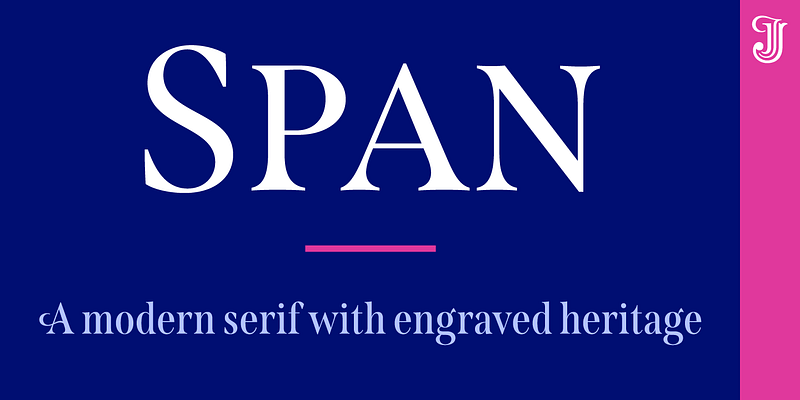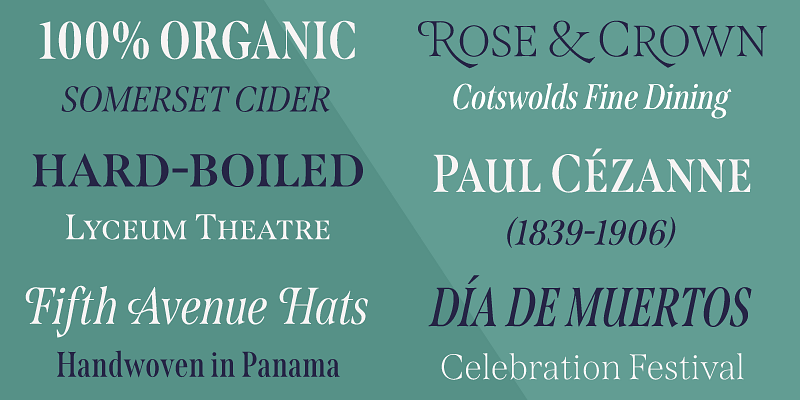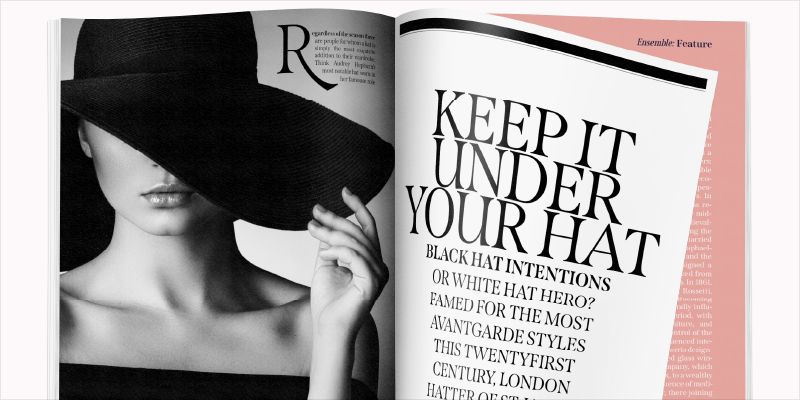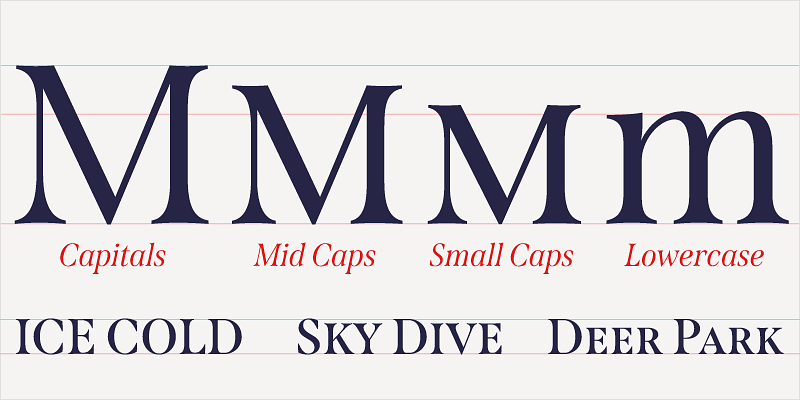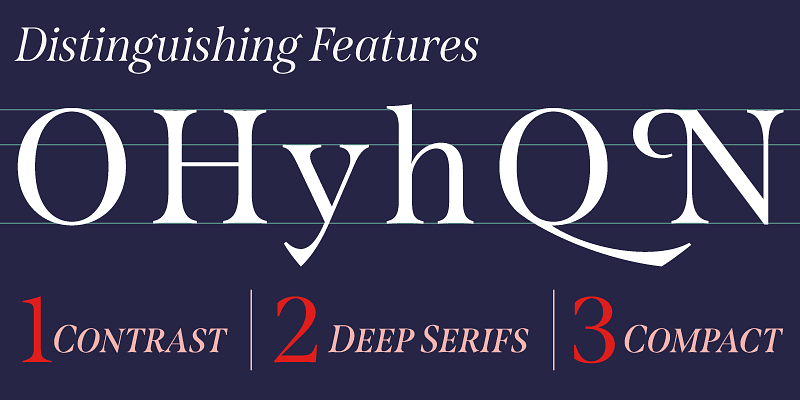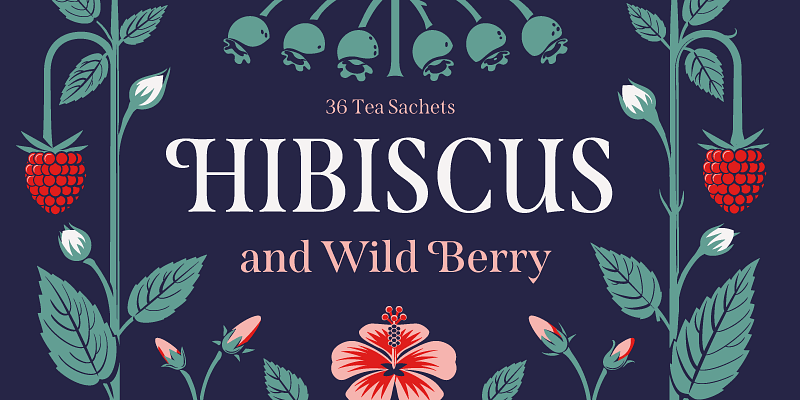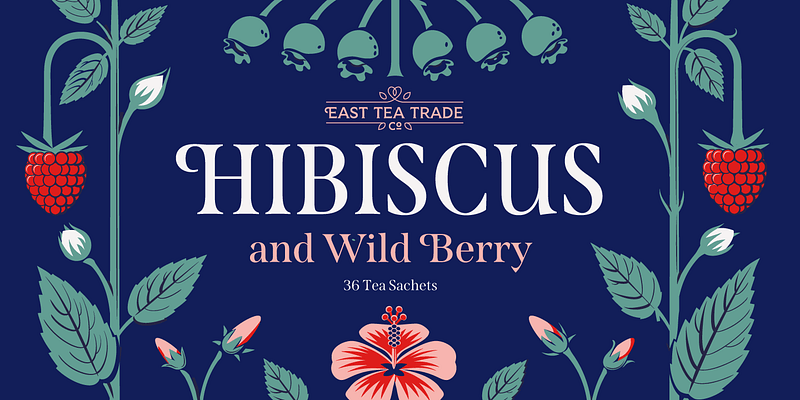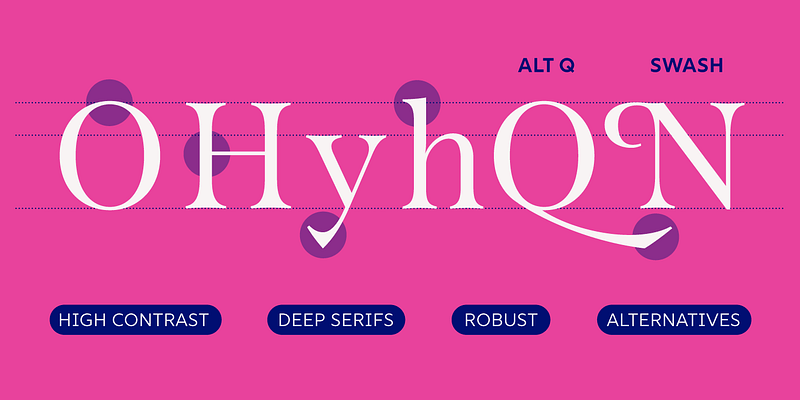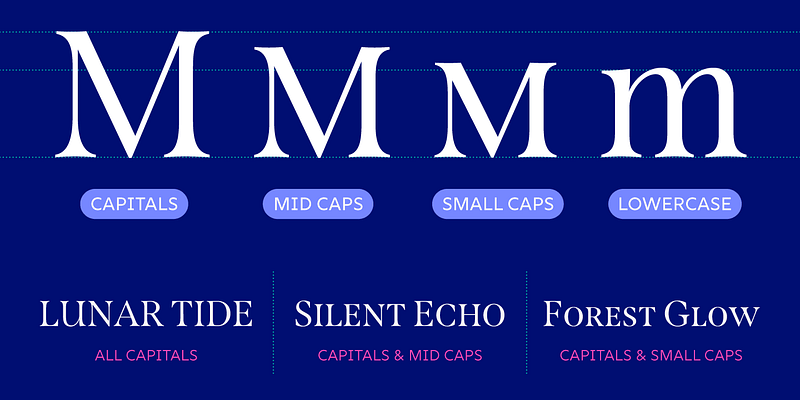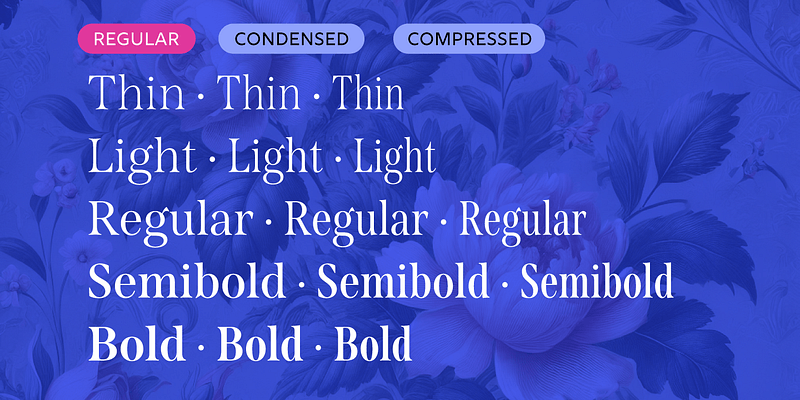
Flaunting its engraved heritage with sweeping serifs and sculptural forms, Span’s elegant design bridges the contemporary and traditional. Packed with typographic options, it exudes luxury and charm.